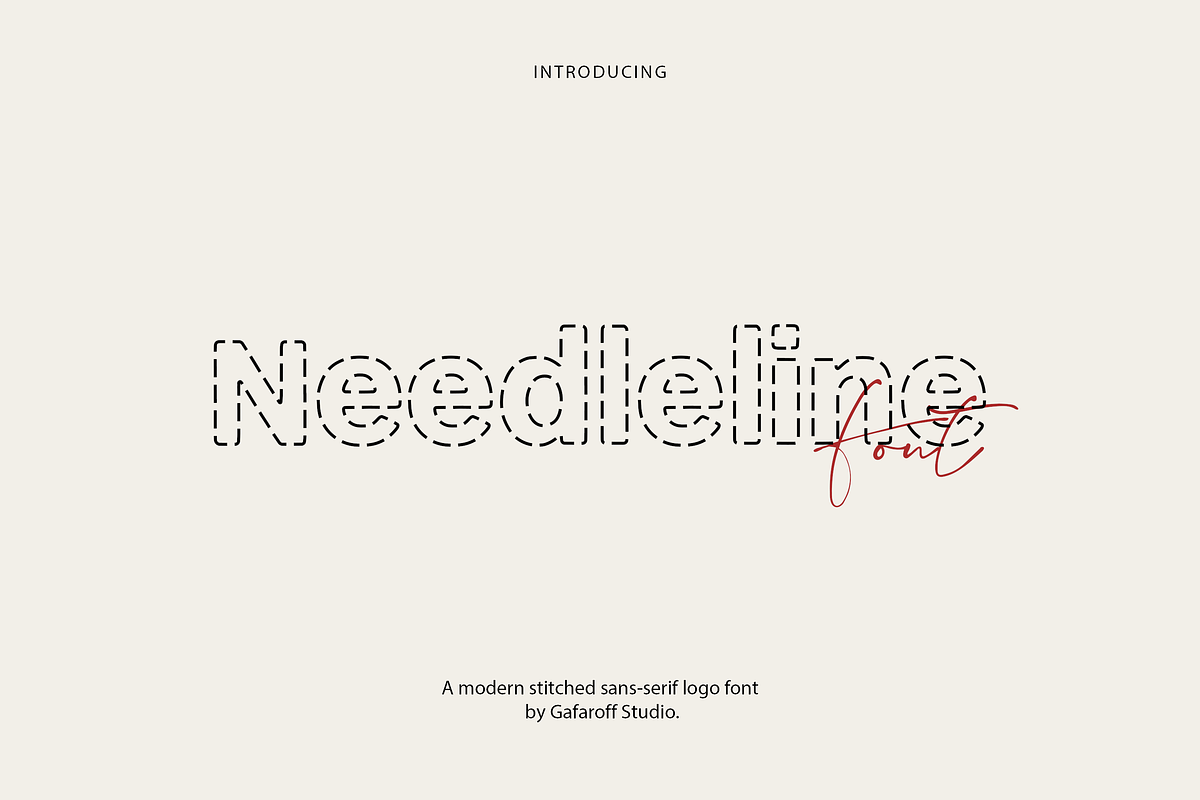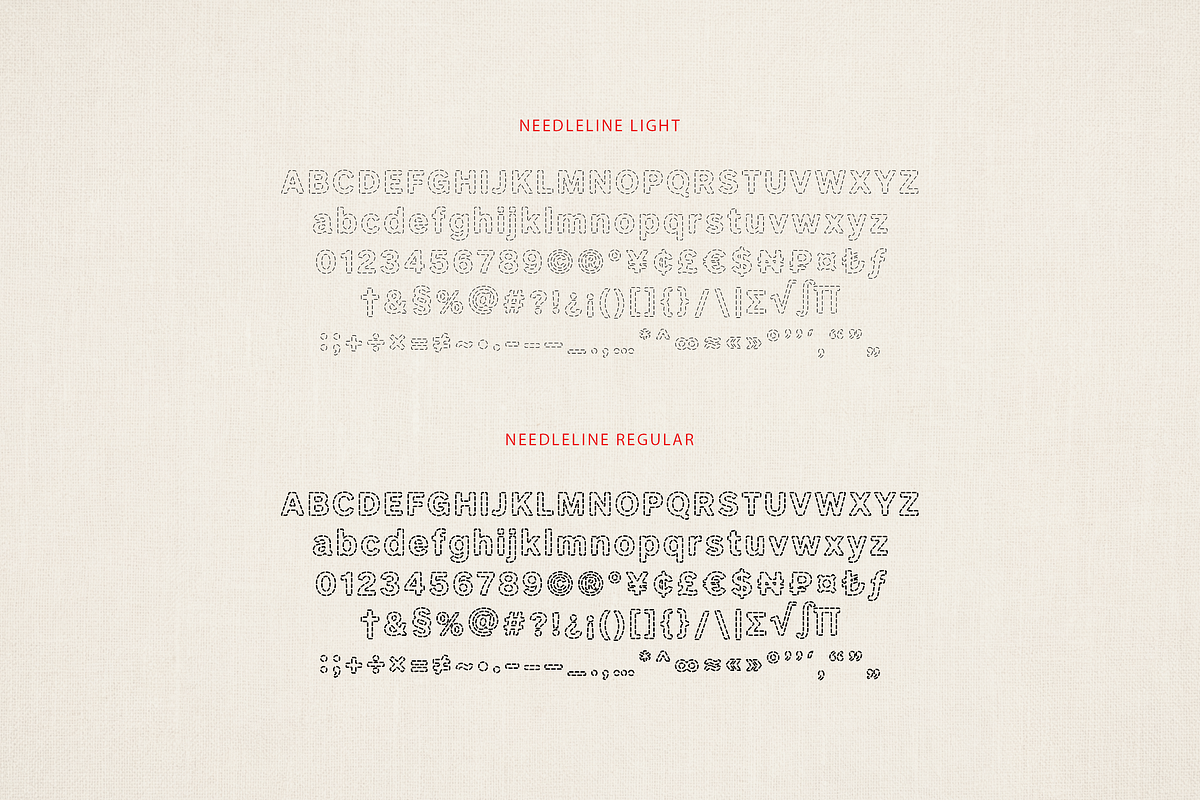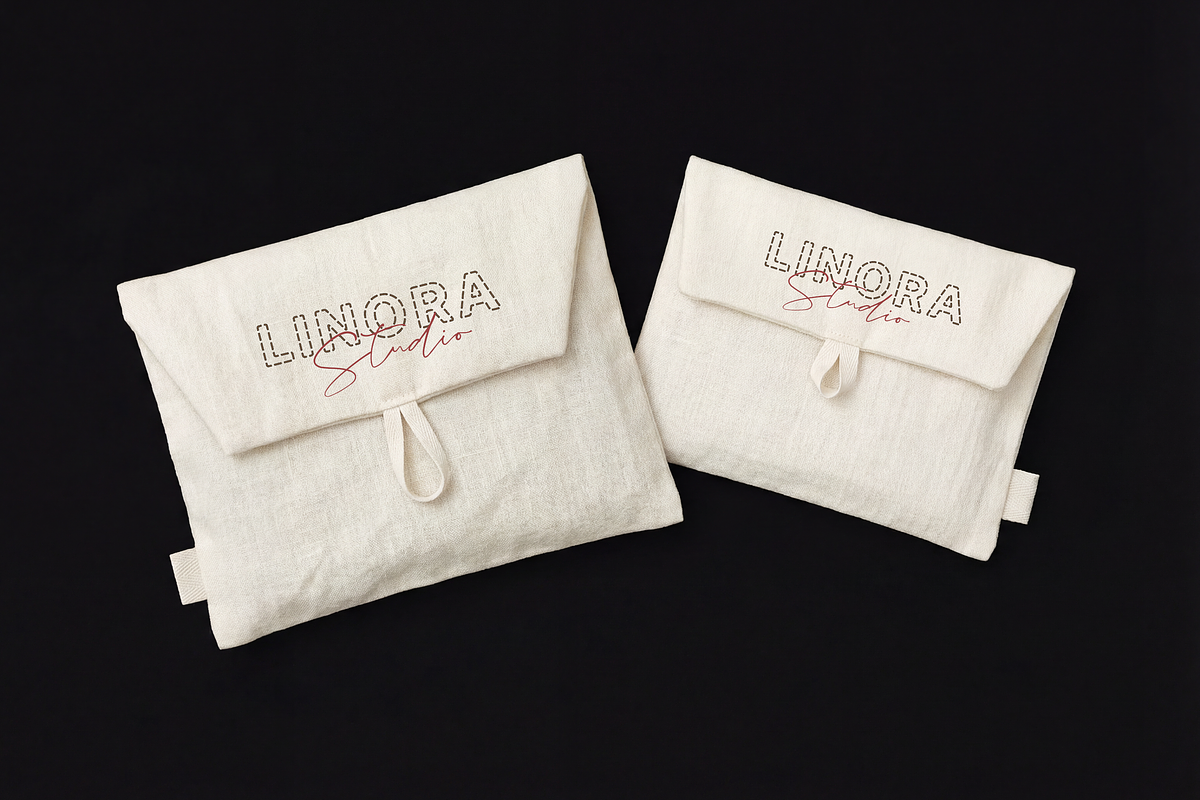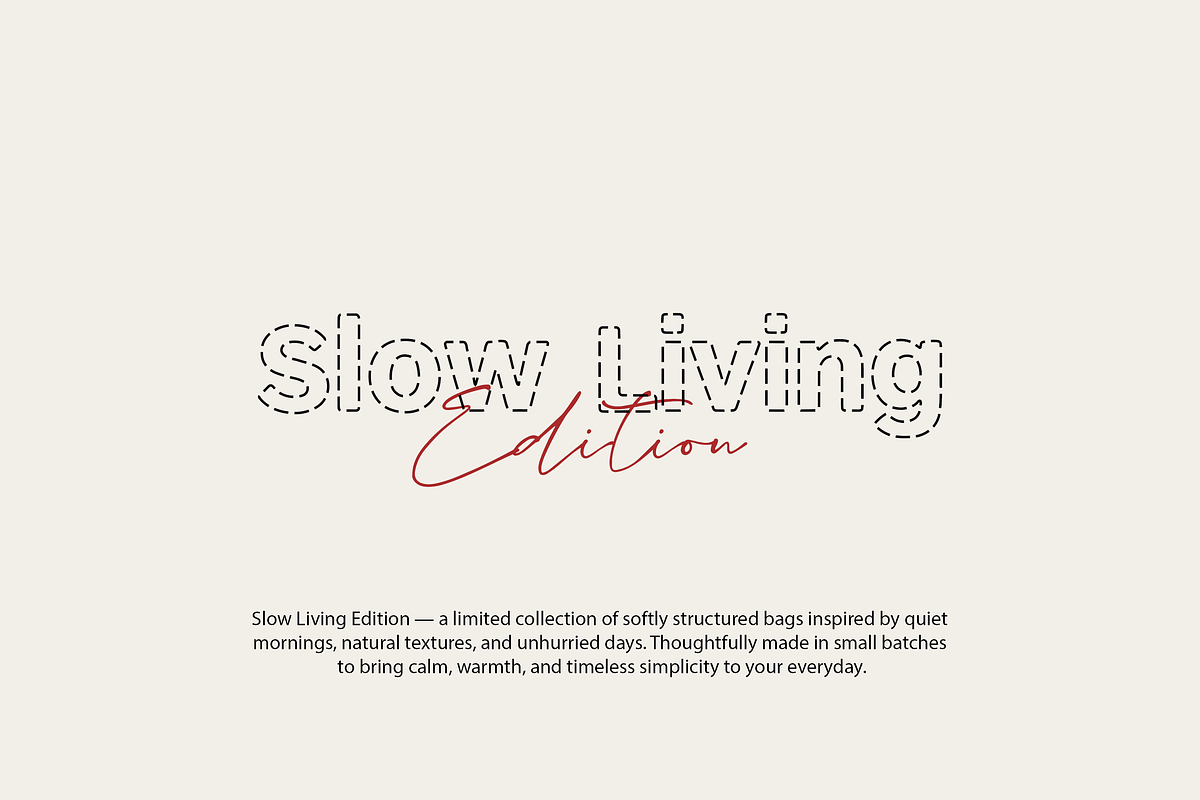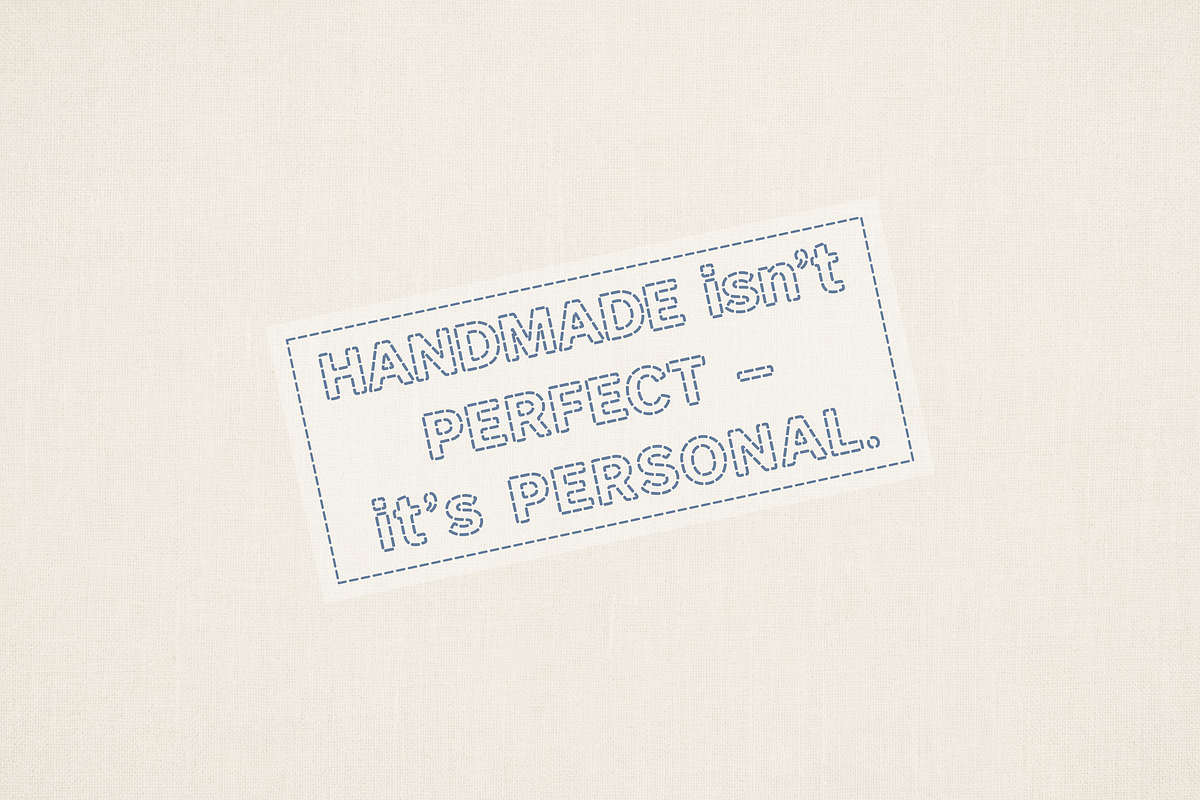
Needleline Font | Stitched Logo Sans
Needleline is a modern stitched display font designed to bring a handcrafted, textile feel to clean branding. Its dashed “thread” construction looks like embroidery—minimal, graphic, and instantly recognizable—perfect for logos that want to feel warm, tactile, and premium.
- Light & Regular.
Best for Logos • Brand identity • Packaging • Product labels • Hang tags • Stickers • Merch • Social media • Website headers • Poster titles
For the most authentic “stitched” effect, use Needleline at larger sizes (titles, logos, packaging). It pairs beautifully with an elegant script or a neutral serif for a polished brand system.